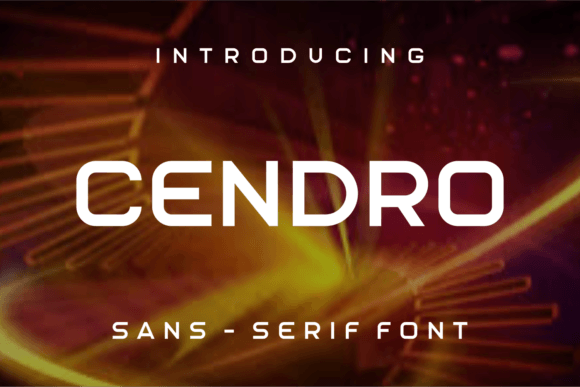
Enter the Cendro Font – a cool and unique sans serif font that’s poised to revolutionize your creative process. Crafted with precision and attention to detail, this font is the perfect addition to any designer’s library. Whether you’re working on a logo, brochure, or website, Cendro Font has the potential to elevate your design to the next level.
With its versatility and style, the Cendro Font is an invaluable asset for designers looking to add a touch of sophistication to their work. Its clean lines and modern aesthetic make it the perfect choice for a wide range of projects, from corporate branding to editorial design.
Cendro Font Key Features
- Font Family: Cendro Font is a sans-serif font family designed for modern typography.
- Unique Characteristics: Cendro Font features clean lines, geometric shapes, and a minimalist aesthetic, making it perfect for modern branding, digital interfaces, and editorial design.
- Font Weight: Available in various weights, including light, regular, medium, bold, and black, allowing designers to achieve the desired level of contrast and emphasis.
Cendro Font Review
I recently had the chance to work with the Cendro Font, and I must say it’s a unique addition to any design project. Here’s my honest review.
- Cendro Font has a distinctive, elegant touch that can elevate any design. Its curved lines and rounded edges make it perfect for creating a sophisticated look.
- The font is highly customizable, with a range of weights and styles to choose from. This makes it suitable for various design applications, from headings to body text.
- Cendro Font is also highly legible, making it easy to read even at small font sizes.
- One of the main limitations of Cendro Font is its limited support for certain languages. This may be a concern for designers working on projects that require multilingual support.
- The font may not be suitable for use in small spaces or at very small font sizes, as the curves and lines can become difficult to read.
Overall, I think Cendro Font is a great addition to any designer’s toolkit. While it may have some limitations, its unique style and high level of customization make it a valuable asset for creating sophisticated designs.